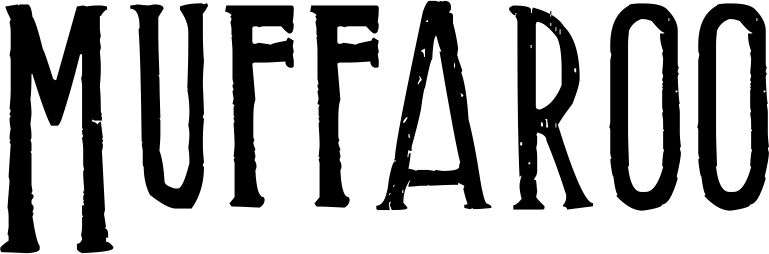
Muffaroo Font
If you are tired of duplicate fonts and want to use a retro font to add a dramatic touch to your artwork, Muffaroo can be ideal for you. The height of its characters is slightly higher than standard and they are elongated.
Although this font does not support lowercase letters, it can surprise your audience with the high quality of content such as packages, flyers, and headlines, also, it can convey a playful, lively, and intimate feeling.